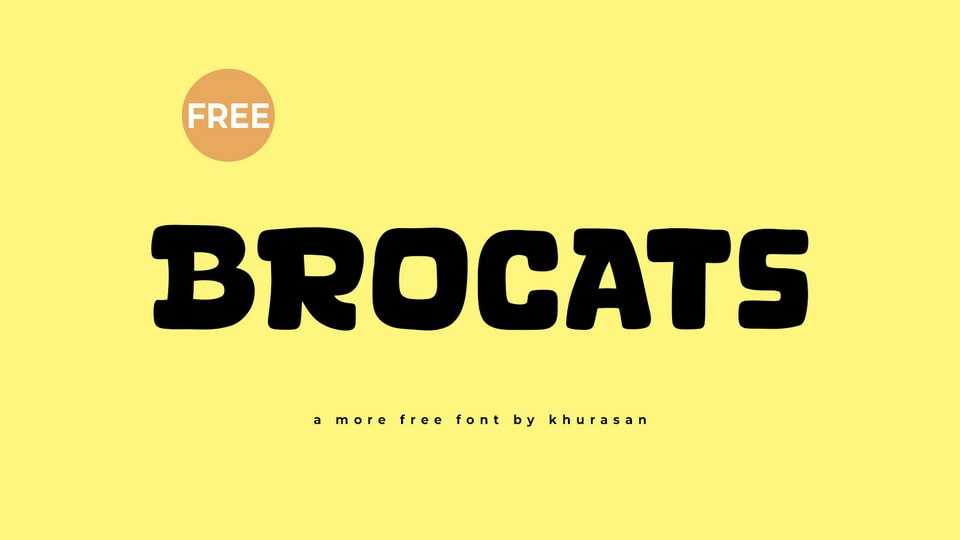
Download Brocats font, a bold, playful hand-drawn cartoon typeface that infuses your designs with a delightful sense of whimsy. Each character is crafted with bold strokes and charming squarish shapes, creating a visual language that radiates energy and playfulness.